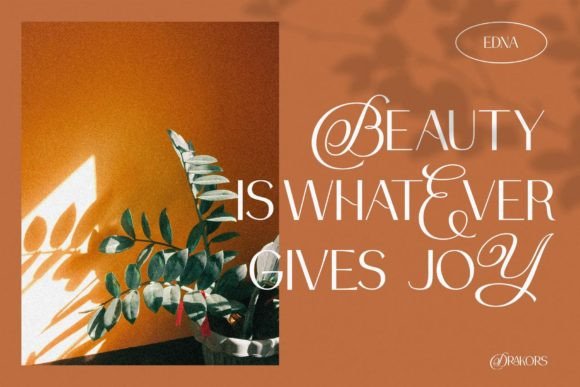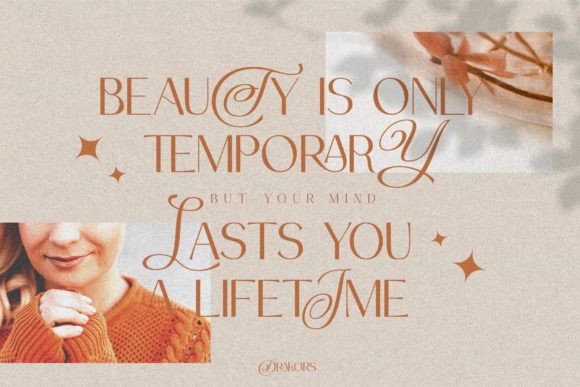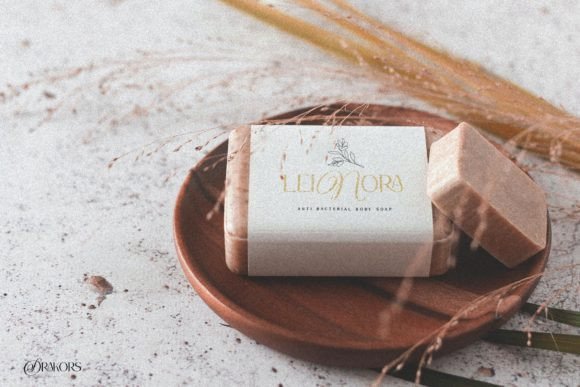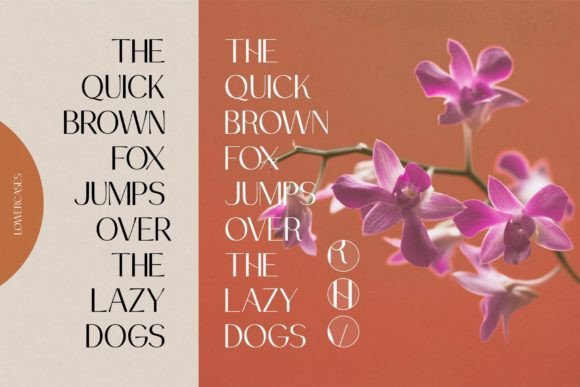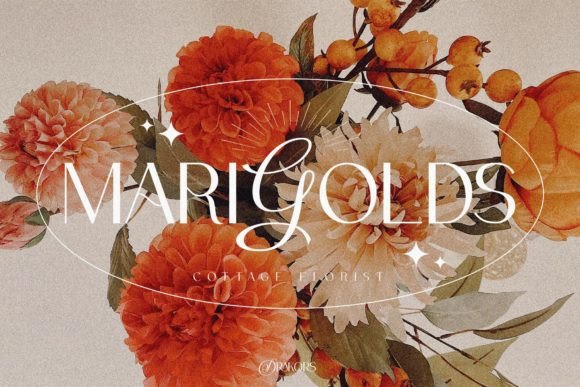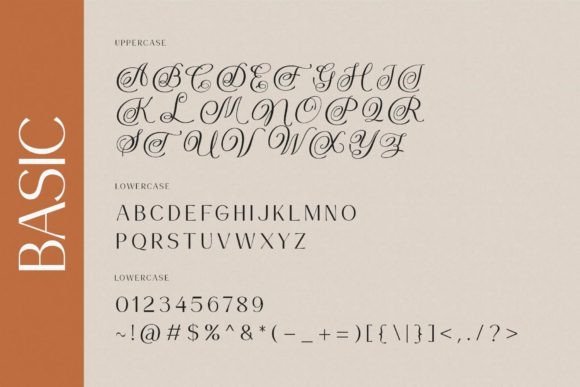
Introduction to Drakors Font
DRAKORS font is designed by combining an elegant script font with a simple and charming serif font style.
This font has a modern serif style combined with elegant script-style letters that make the DRAKORS font look different and unique from the fonts you have on your computer collection DRAKORS is perfect for magazine cover designs, brochures, and flyers.
Key Features of Drakors Font
Why Choose Drakors Font?
Drakors Font offers exceptional quality and versatility, making it a valuable addition to your design toolkit. Whether you’re creating for personal projects or commercial use, Drakors Font delivers professional results.